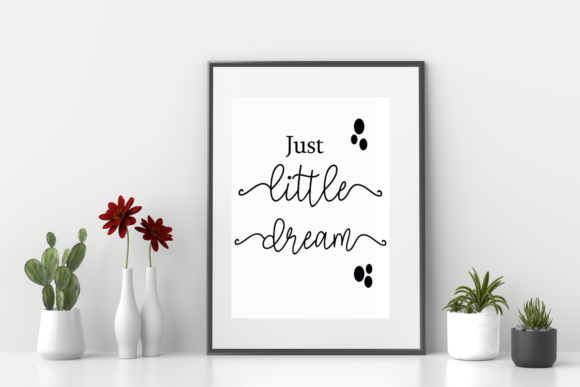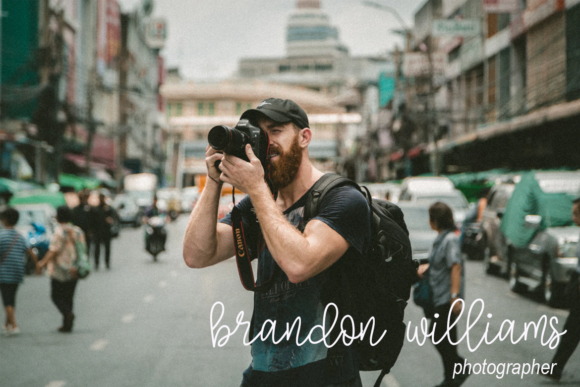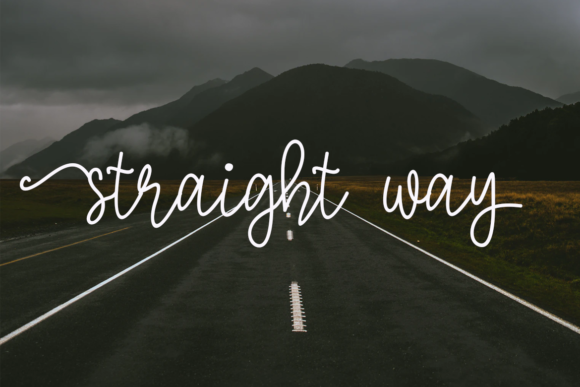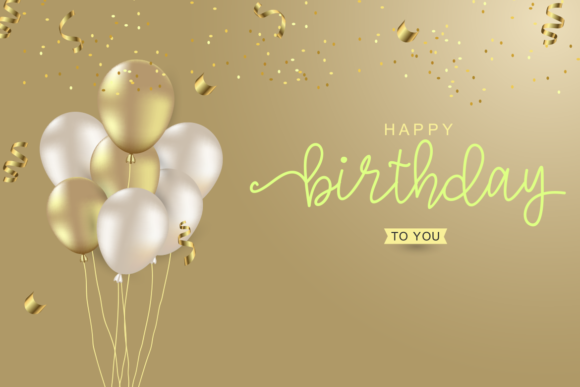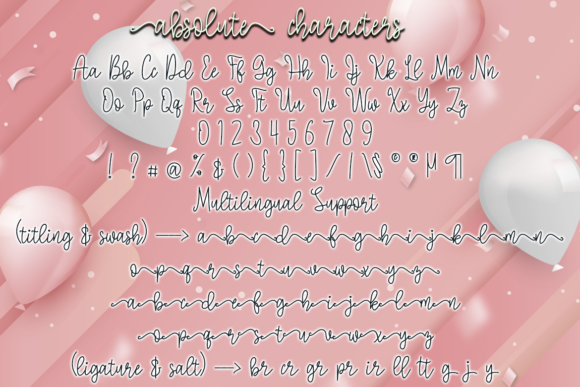
About Absolute Font
Absolute is a handwritten font which feels incredibly elegant and flowing. It looks stunning on wedding invitations, thank you cards, quotes, greeting cards, logos, business cards and every other design which needs a handwritten touch.This font is PUA encoded which means you can access all of the glyphs and swashes with ease!